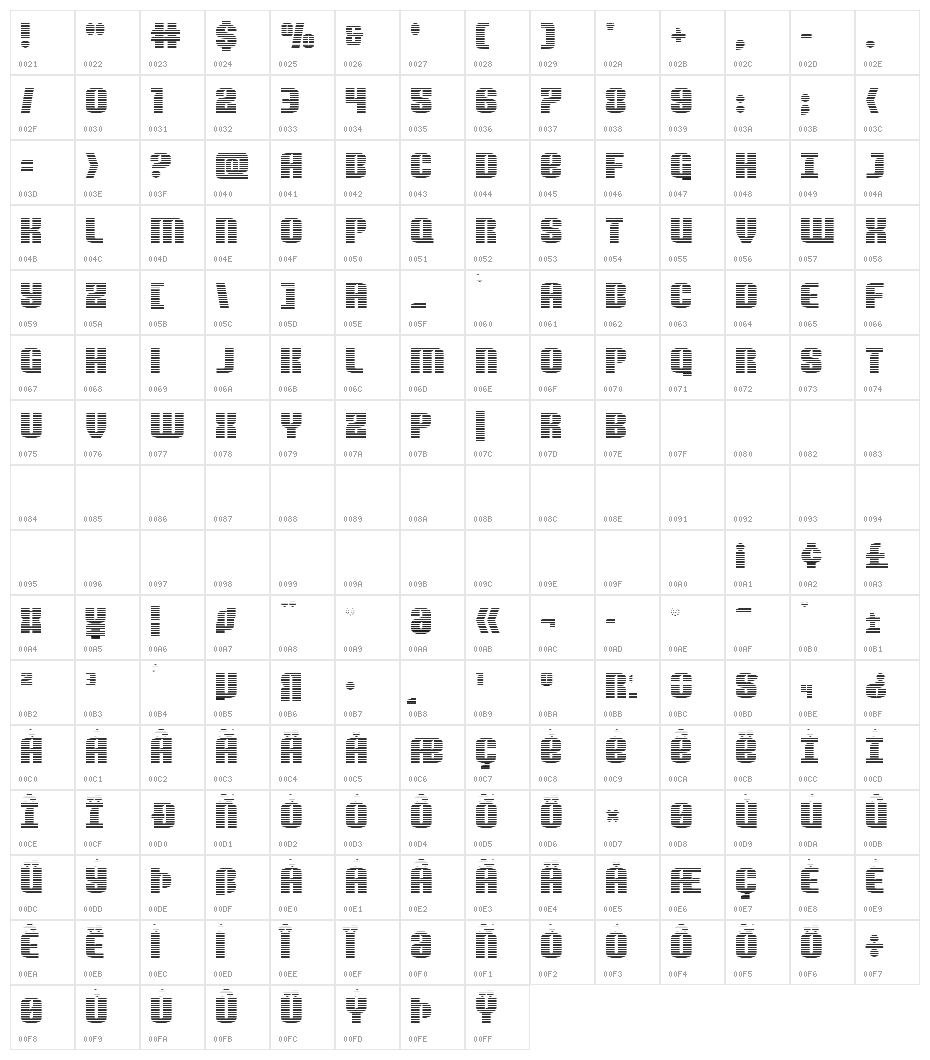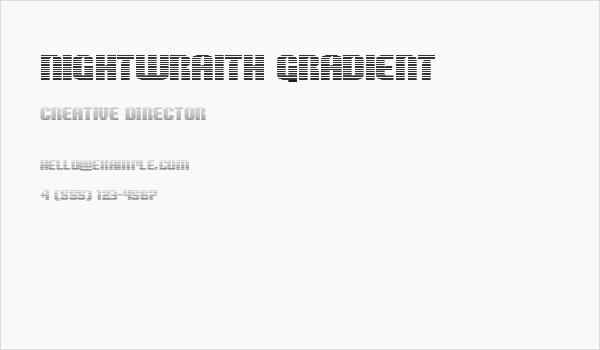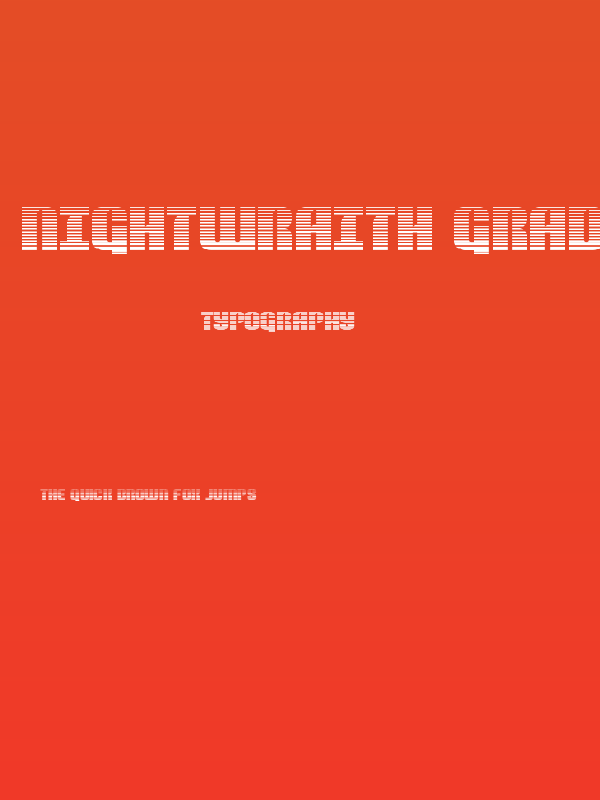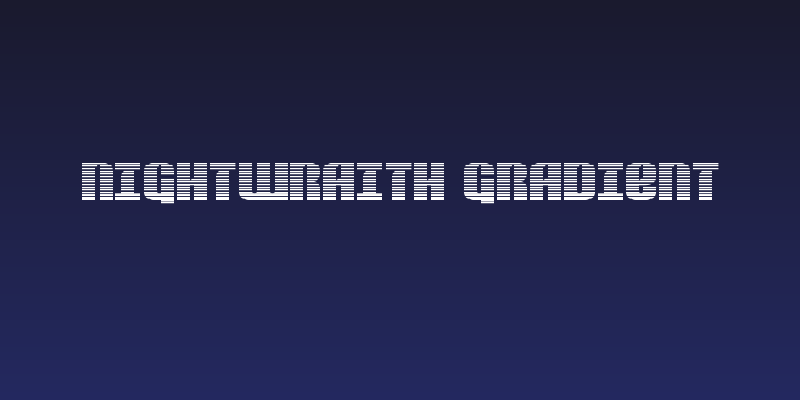
Nightwraith Gradient Font
✎ Futuristic
| مشاريع مقترحة | Ideal for sci-fi themed projects, technology branding, video game titles, and modern poster designs. |